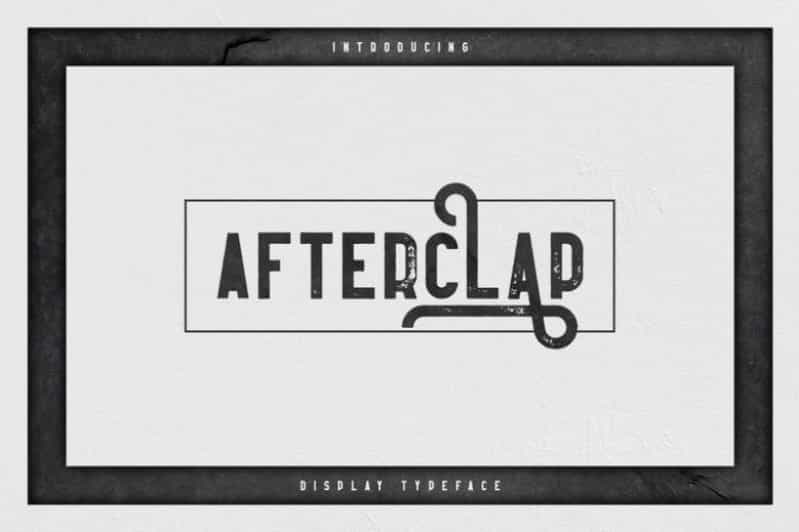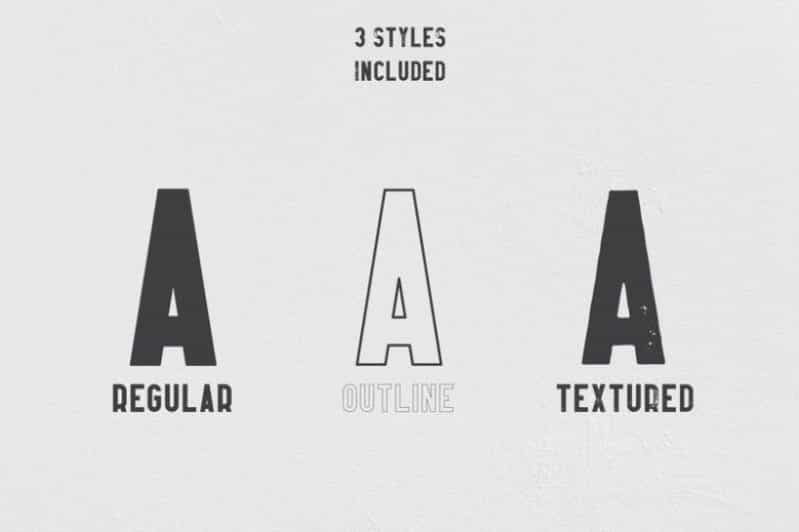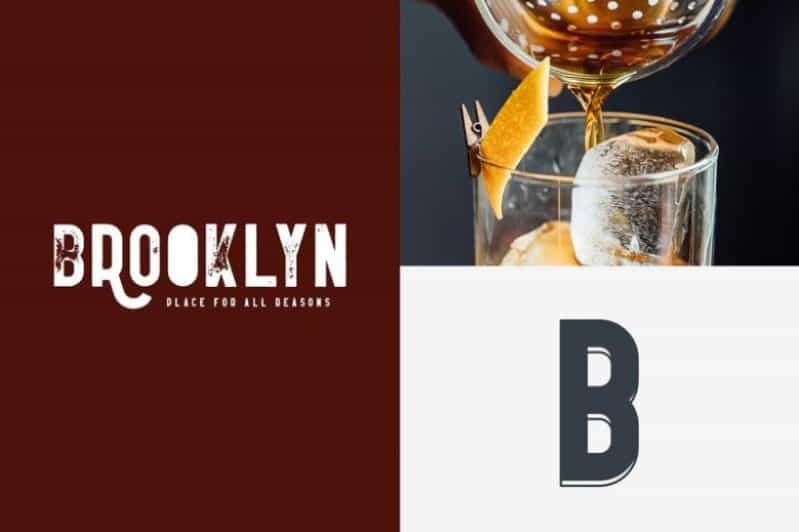
Afterclap is a modern and minimalistic font with a retro touch having three styles, many discretionary ligatures, and support for many languages. It is a very useful font because it looks good even when printed in large sizes or in small sizes.